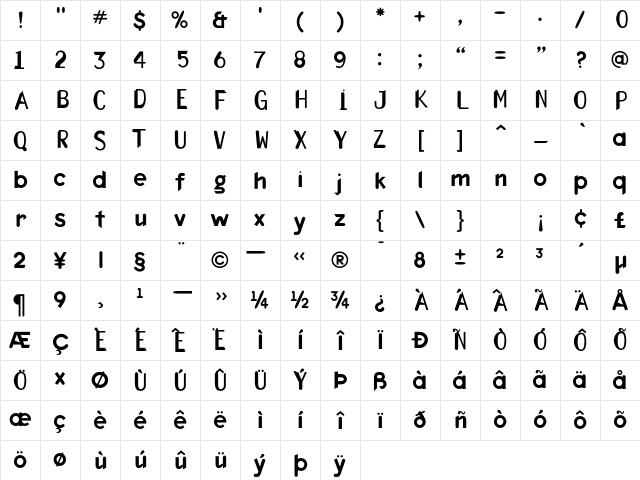
Awkward Regular Free Font
Awkward Regular
Design Context for Awkward
Awkward is a composed and adaptable typeface that performs quietly and consistently across a wide range of design contexts.